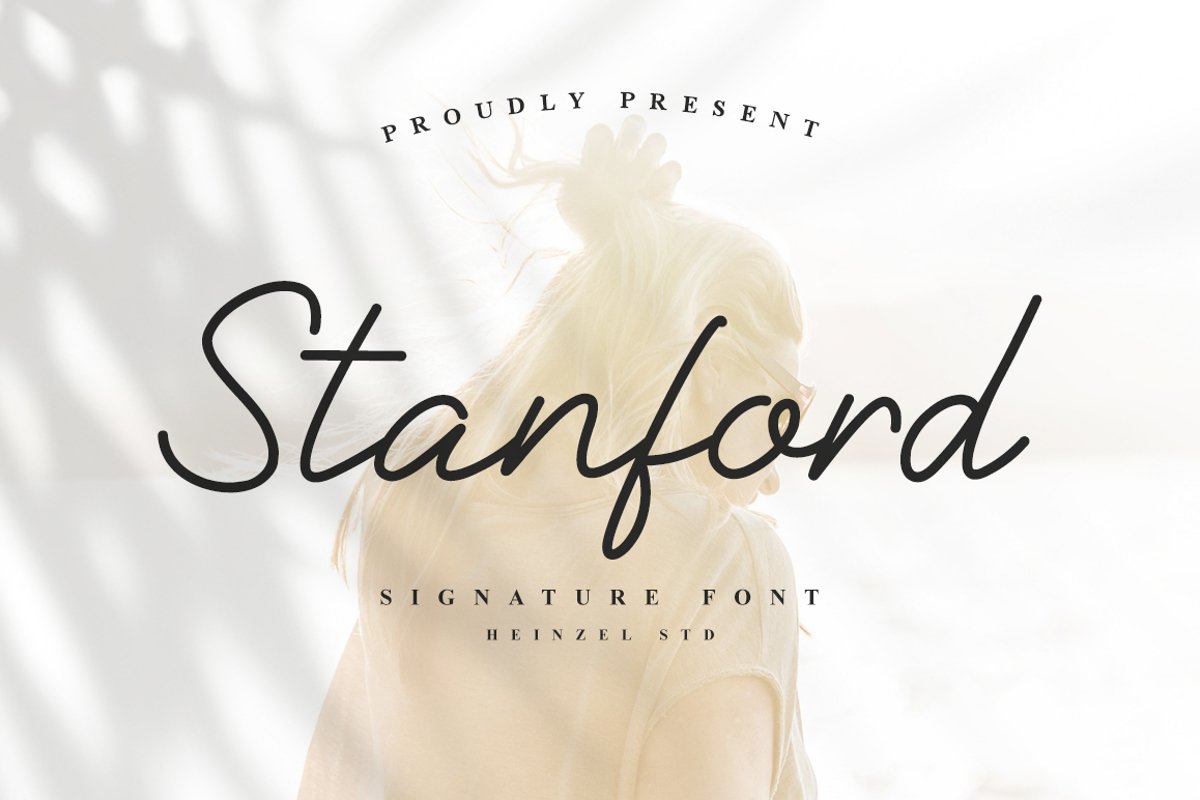
Stanford Signature
Stanford
Stanford Signature Script style - a new modern & fresh script with a handwritten and script style make this font looks elegant, natural, stylish and perfect for any awesome projects that need handwriting taste.
Stanford Signature would perfect for photography, watermark, social media posts, advertisements, logos & branding, invitation, product designs, label, stationery, wedding designs, product packaging, special events or anything that need handwriting taste.